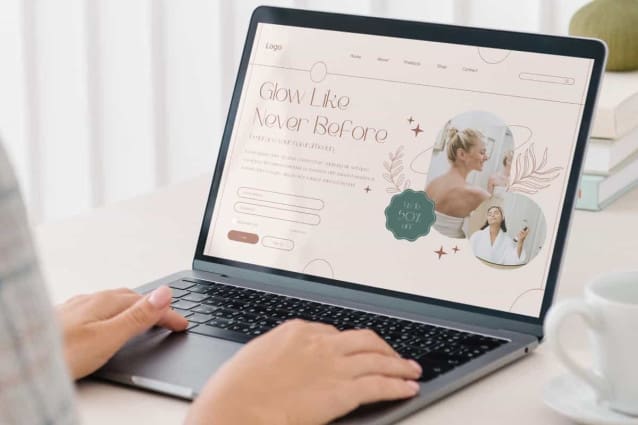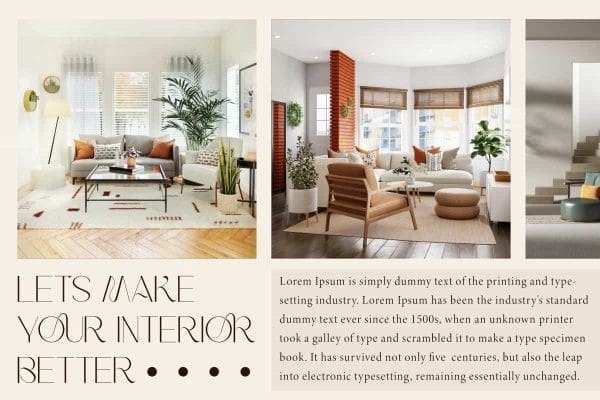
Rico Jackson Font
Rico Jackson Font is a sleek and beautiful display font, by RaisProject. This sans serif font has a beautiful and very special aura to make your design even more amazing. It will be good for any designs, such as brand image, calendar, cover, custom design, greeting card, invitation, label, poster, product packaging, quotes, signage, stationery, web, and more!
Rico Jackson Font includes a full set of Uppercase and Lowercase Letters, Numerals, Punctuation, Symbol, and Ligature characters. This modern font will be suitable for various industries, such as accessories, advertisement, event or wedding organizer, fashion, florist, homeware, photography, printing, publishing, etc.